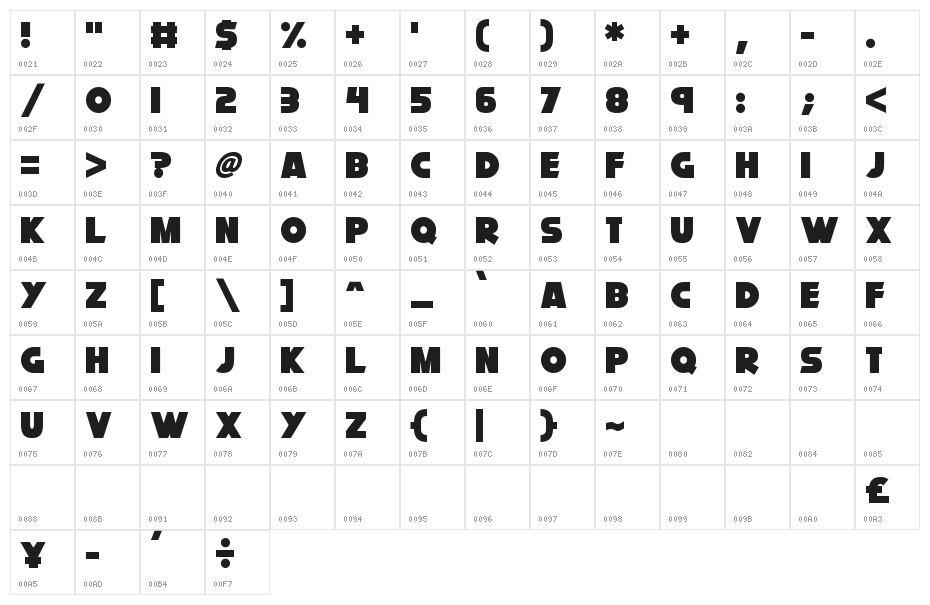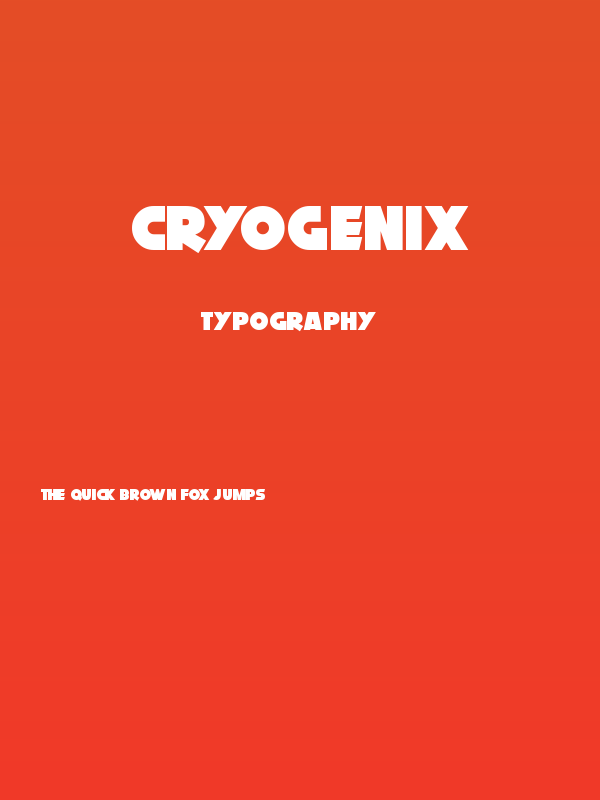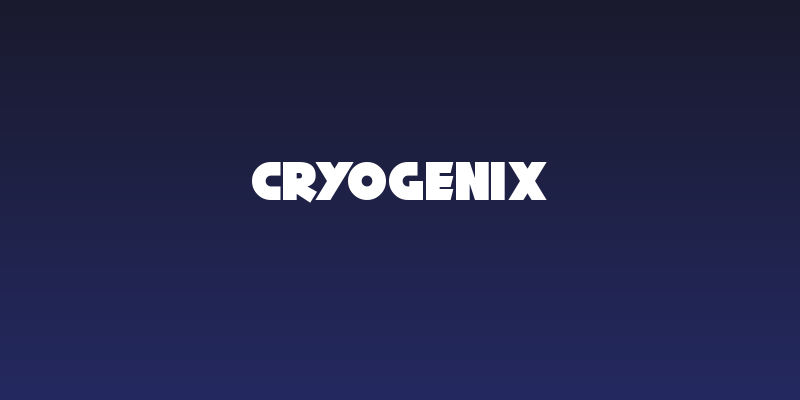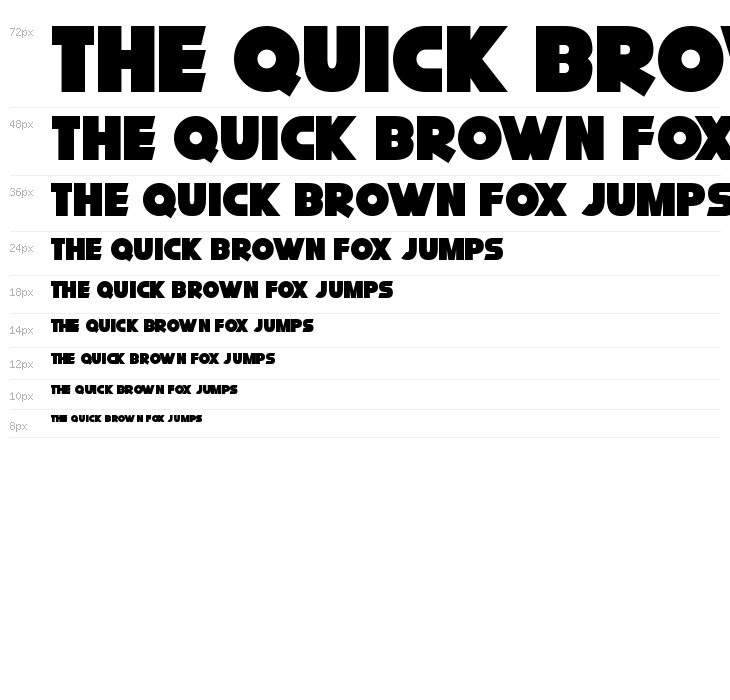
Cryogenix Font
Cryogenix Description
This font features a bold and impactful design with strong geometric shapes and a modern aesthetic. The characters are uniformly thick, creating a sense of stability and strength. The uppercase and lowercase letters maintain a consistent style, with rounded edges that soften the overall appearance. The numerals and special characters are designed to match the boldness of the alphabet, ensuring a cohesive look across all text. The font's design is ideal for making a statement, with its wide and commanding presence that draws attention.
| Proposed Projects | Ideal for headlines, posters, branding, and any project requiring a strong visual impact. |